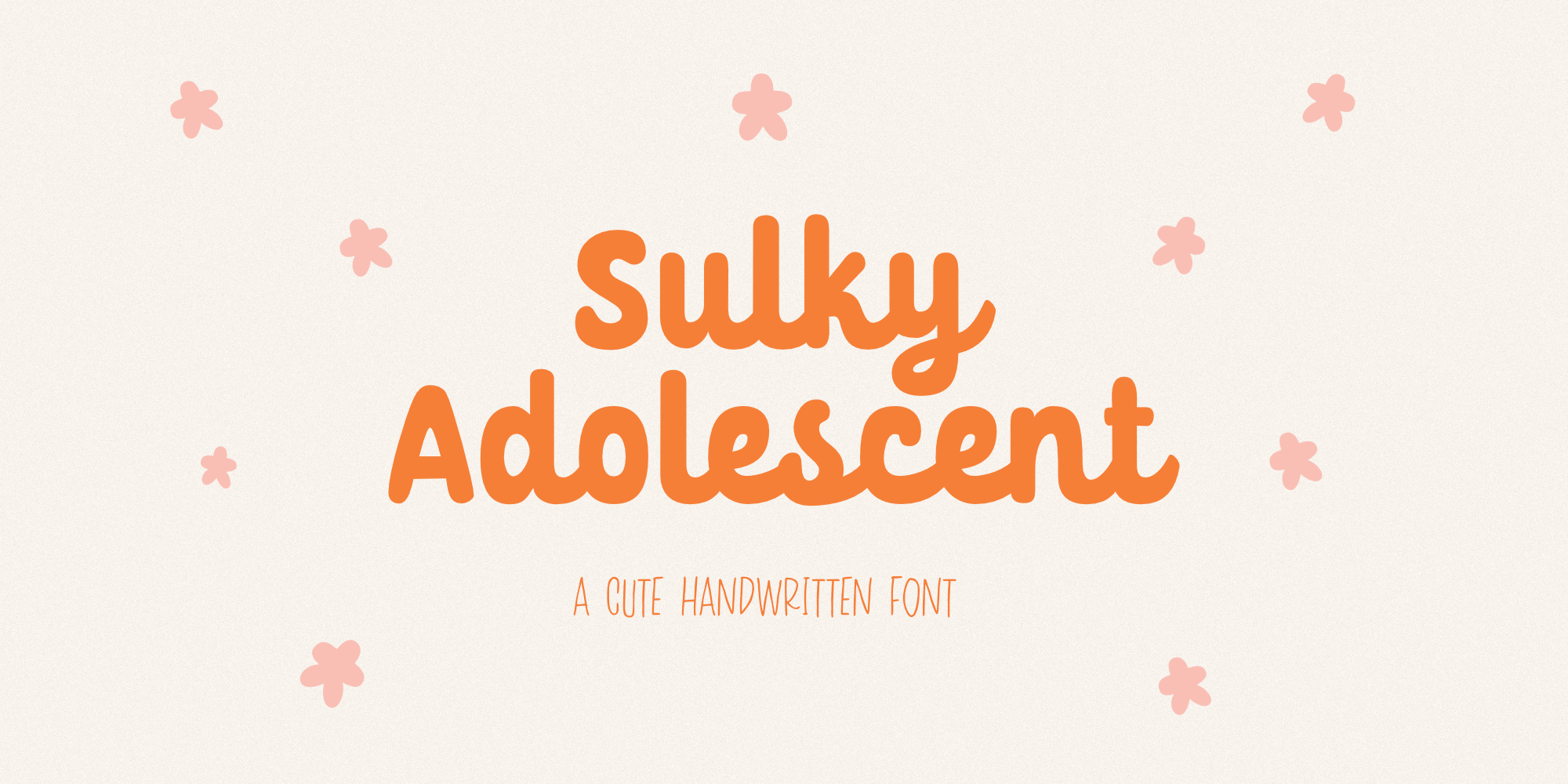
Sulky Adolescent Font is perfect for teen magazine layouts, coming-of-age film titles, youth rebellion campaigns, adolescent psychology materials, teen counseling services, young adult book covers, teenage fashion brands, angsty indie music graphics, youth empowerment projects, and authentic applications that capture the complex emotional landscape and authentic voice of teenage experience.
What makes Sulky Adolescent Font truly exciting is its honest representation of teenage emotion and authentic adolescent expression that captures the complex mix of rebellion, vulnerability, and self-discovery that defines the transformative journey of adolescence. This exceptional typeface combines moody authenticity with youthful energy, featuring irregular letterforms and emotionally-charged character that convey both teenage angst and emerging identity. The font's adolescent personality and coming-of-age authenticity make it perfect for projects seeking to communicate genuine teen experience, emotional honesty, and the powerful journey of self-discovery that defines the transition from childhood to adulthood.
The Sulky Adolescent Font family includes multiple weights and styles: Light, Regular, Bold, Moody, and Rebellious variations designed for maximum teenage impact. Each family member maintains the distinctive adolescent character while offering flexibility for diverse youth applications and coming-of-age branding systems. The comprehensive character set supports emotional typography needs and teenage design elements, making it suitable for international youth communications.
When you choose Sulky Adolescent Font Free Download, you're selecting a typography voice that delivers authentic teenage credibility and adolescent honesty to every youth-focused project. This genuine typeface excels in applications where teenage authenticity and emotional truth are essential, delivering exceptional youth appeal while maintaining adolescent legitimacy. Whether you're designing teen brands, youth campaigns, coming-of-age materials, or adolescent marketing content, this font provides the teenage sophistication and emotional authenticity that resonates with young audiences who appreciate honest expression, emotional validation, and the complex journey of discovering their authentic identity during the challenging and transformative years of adolescence.